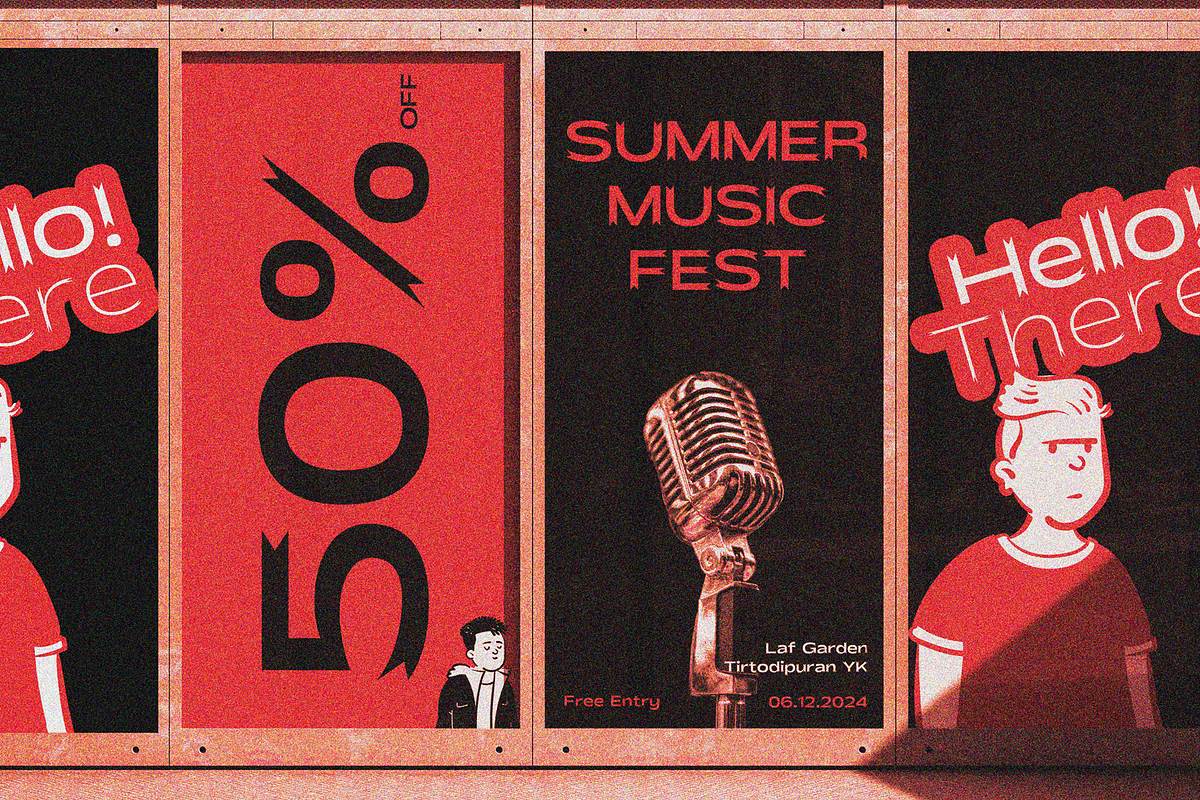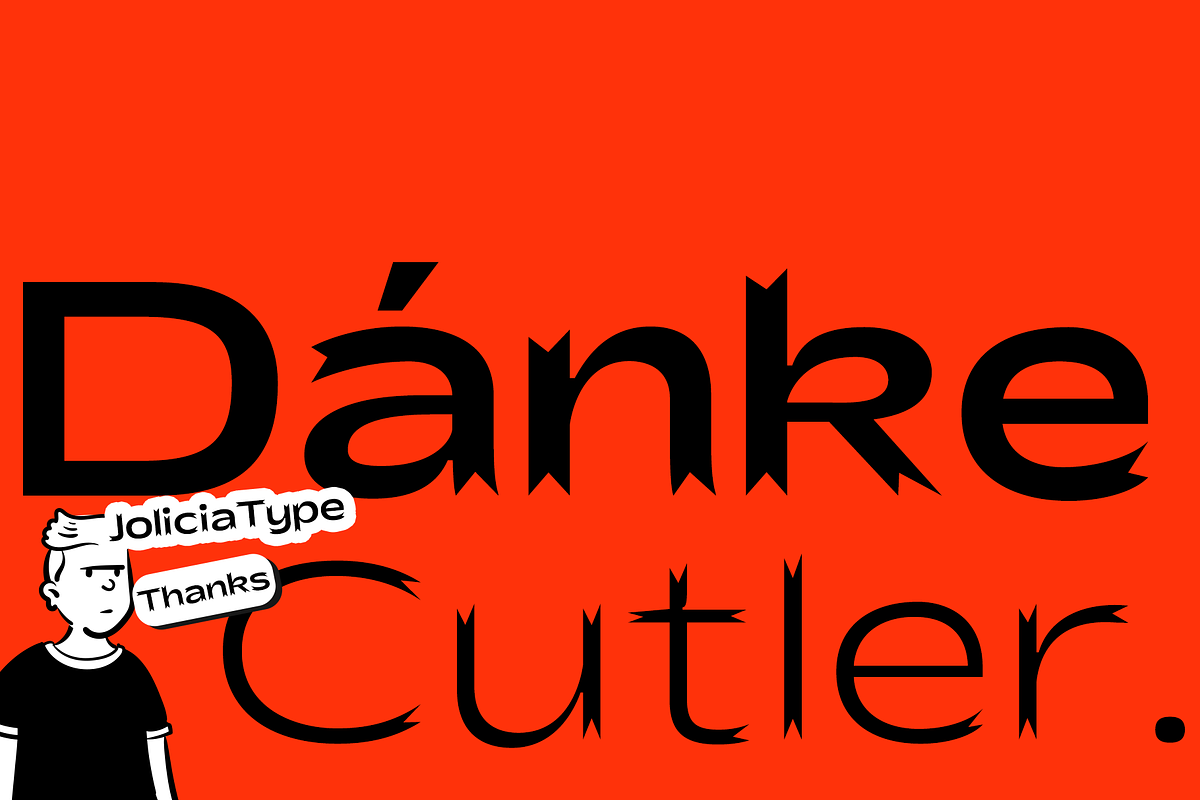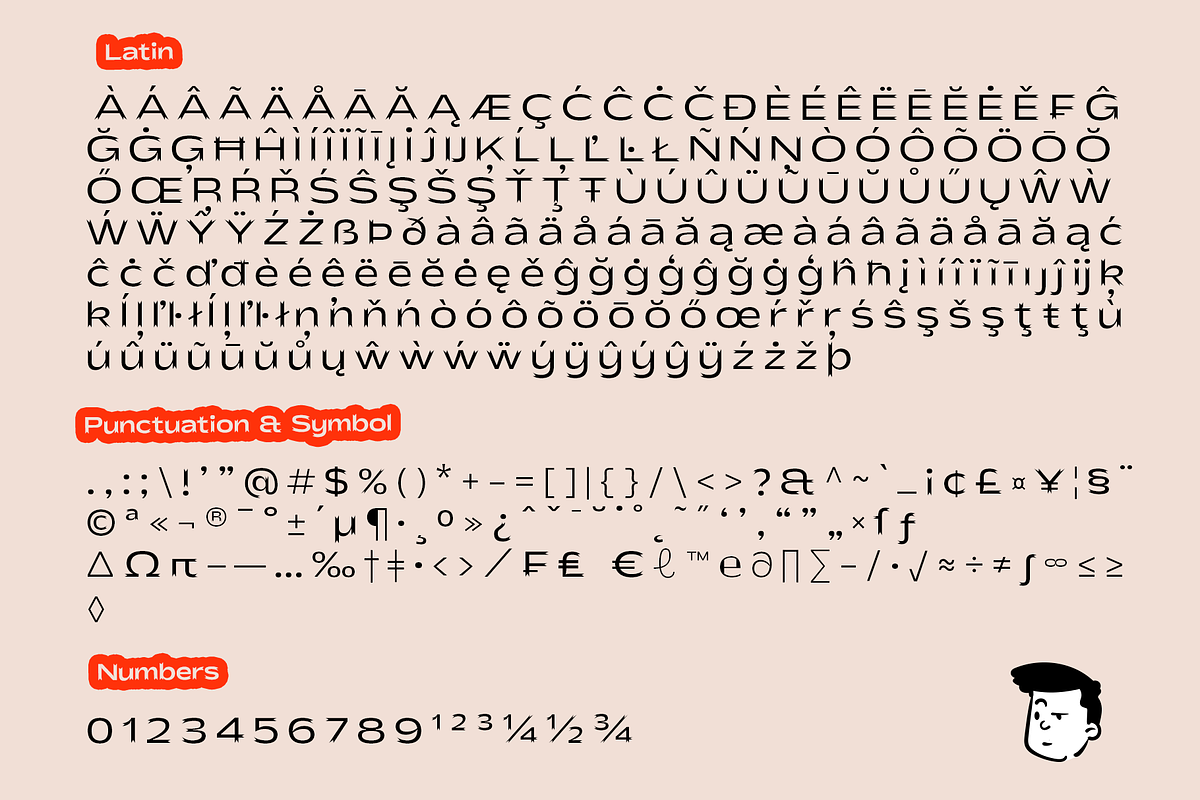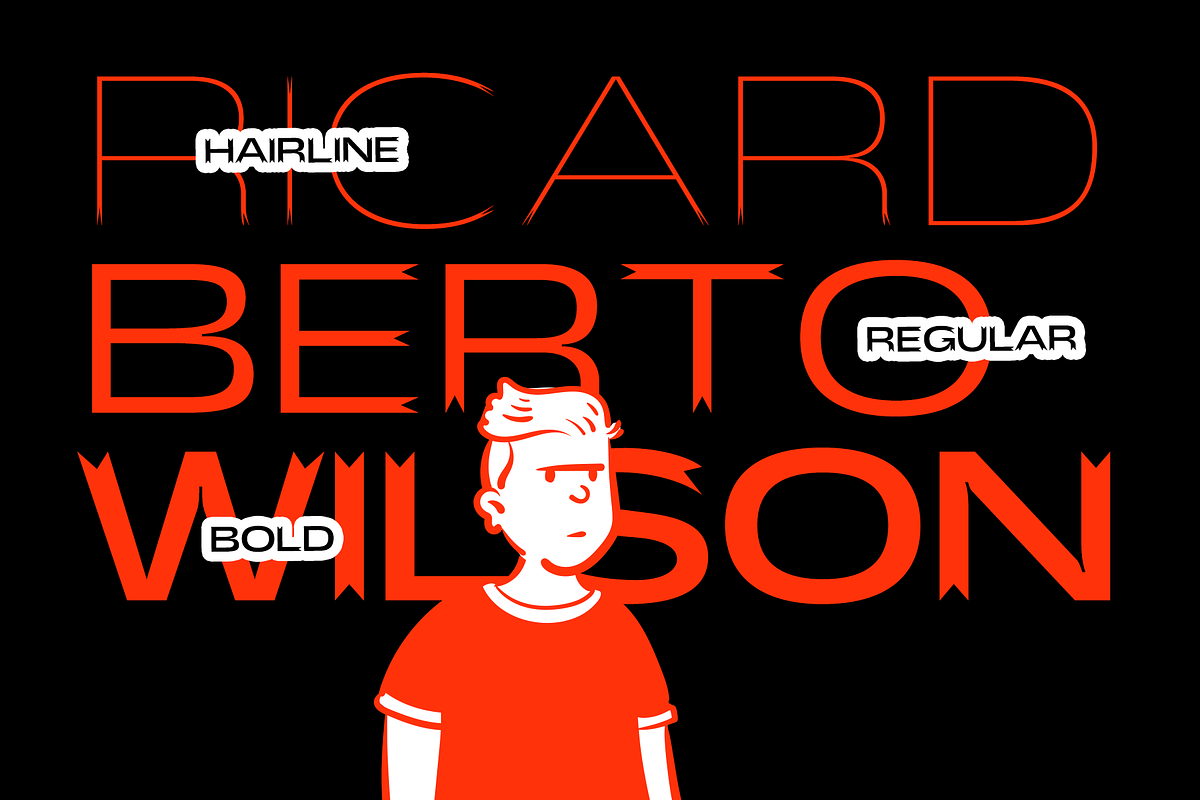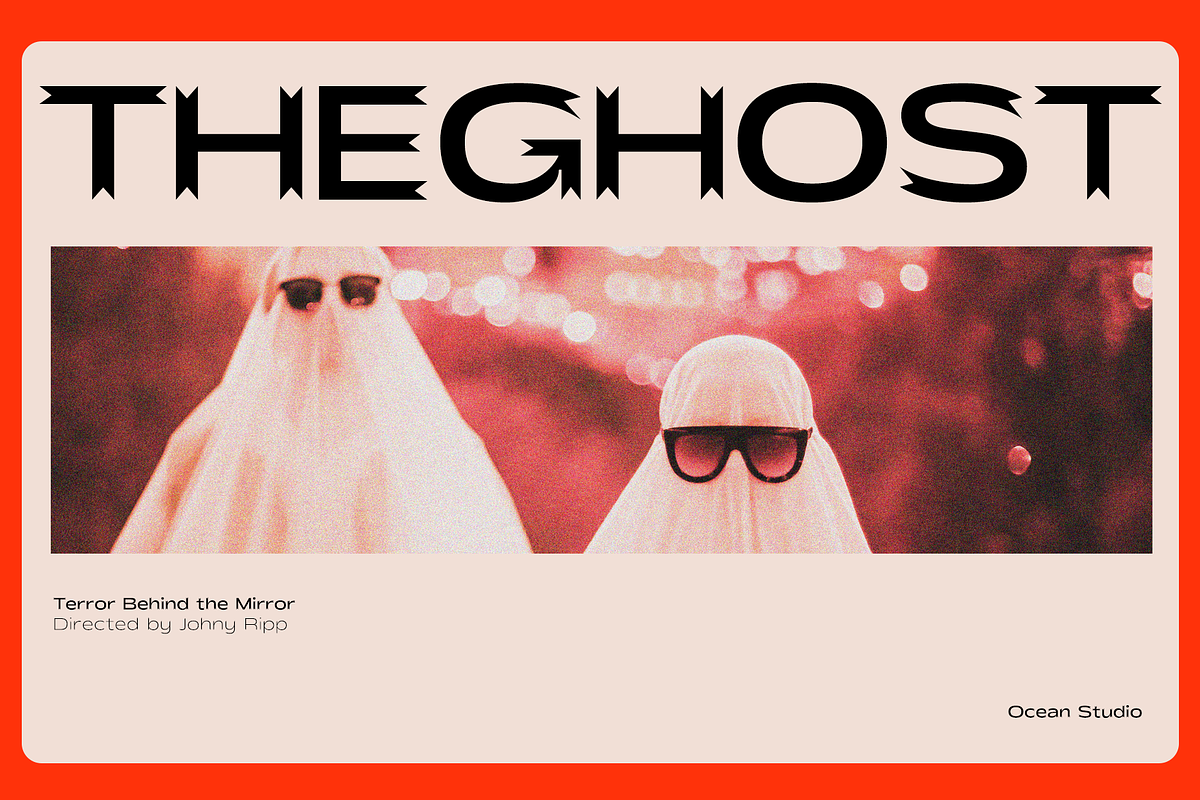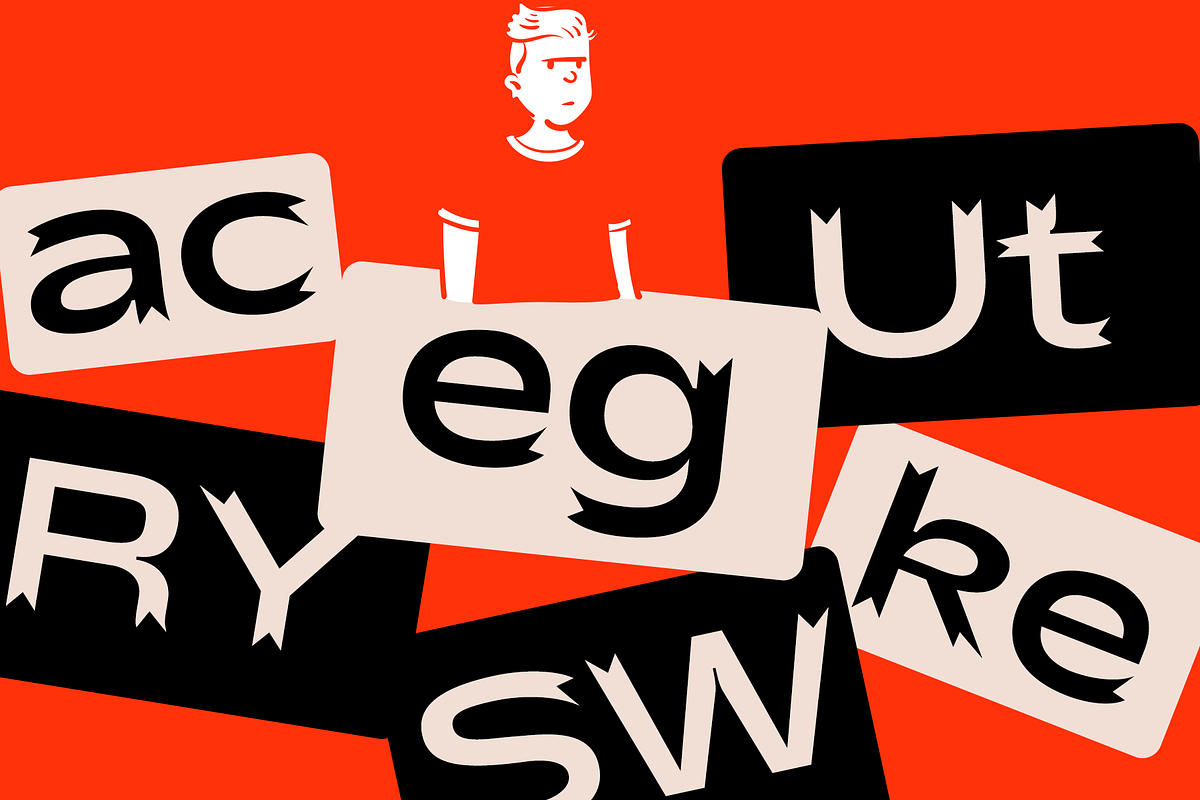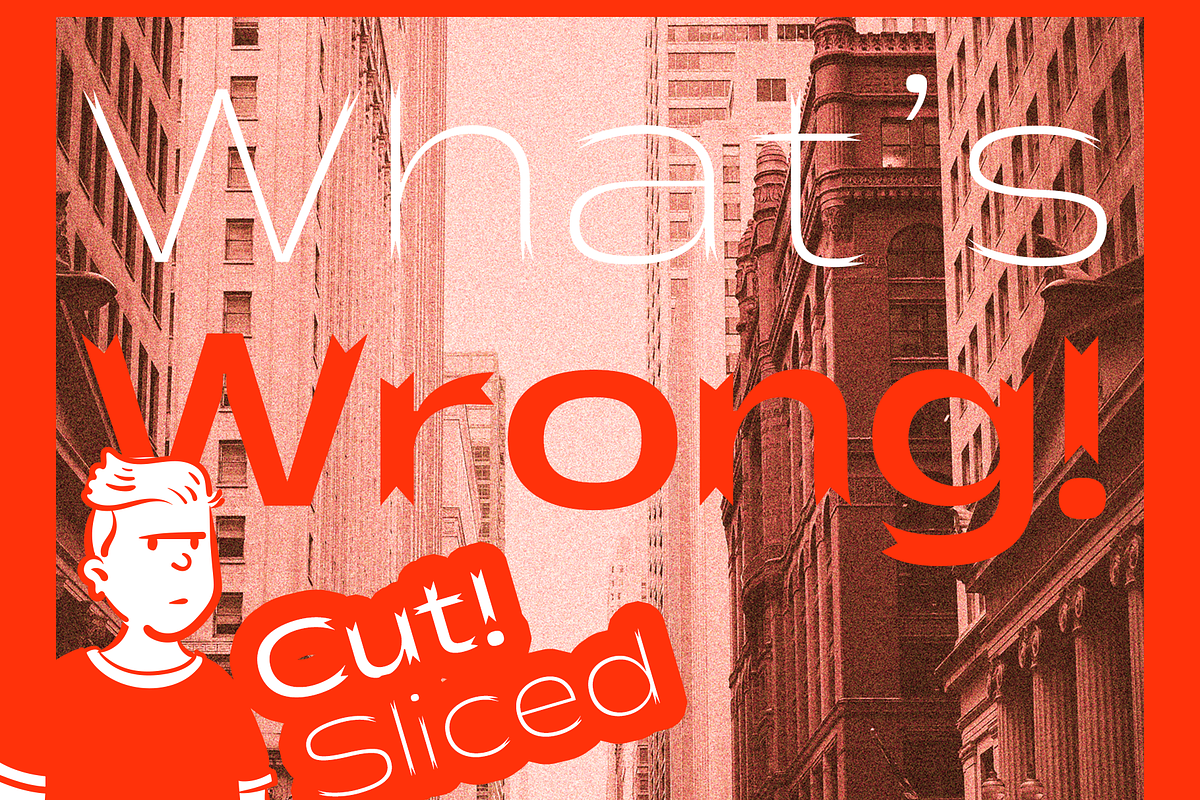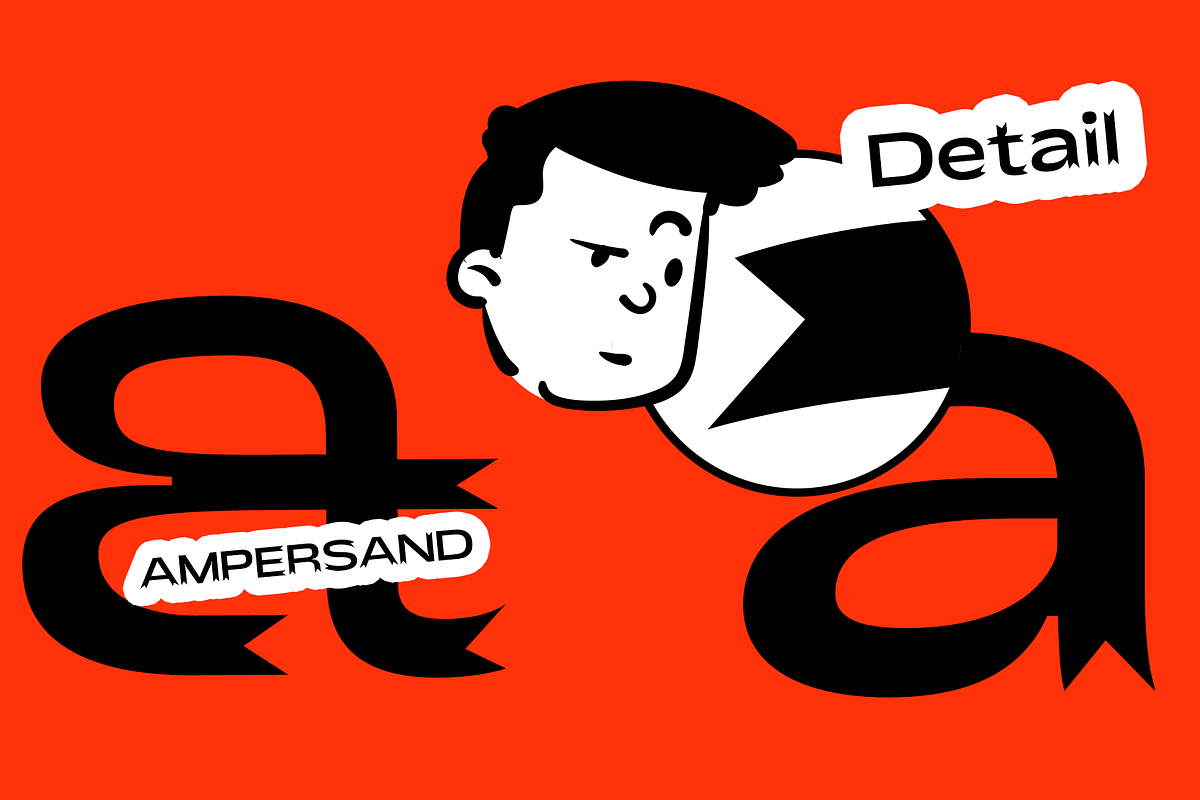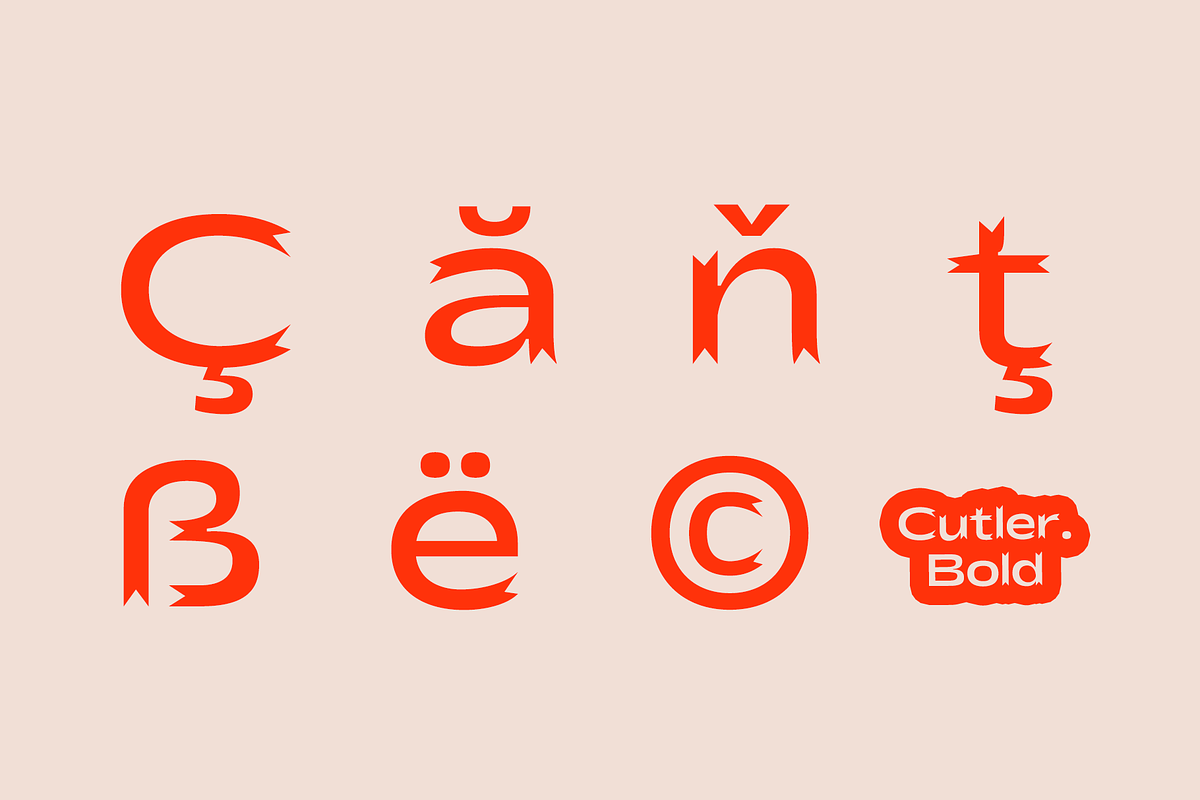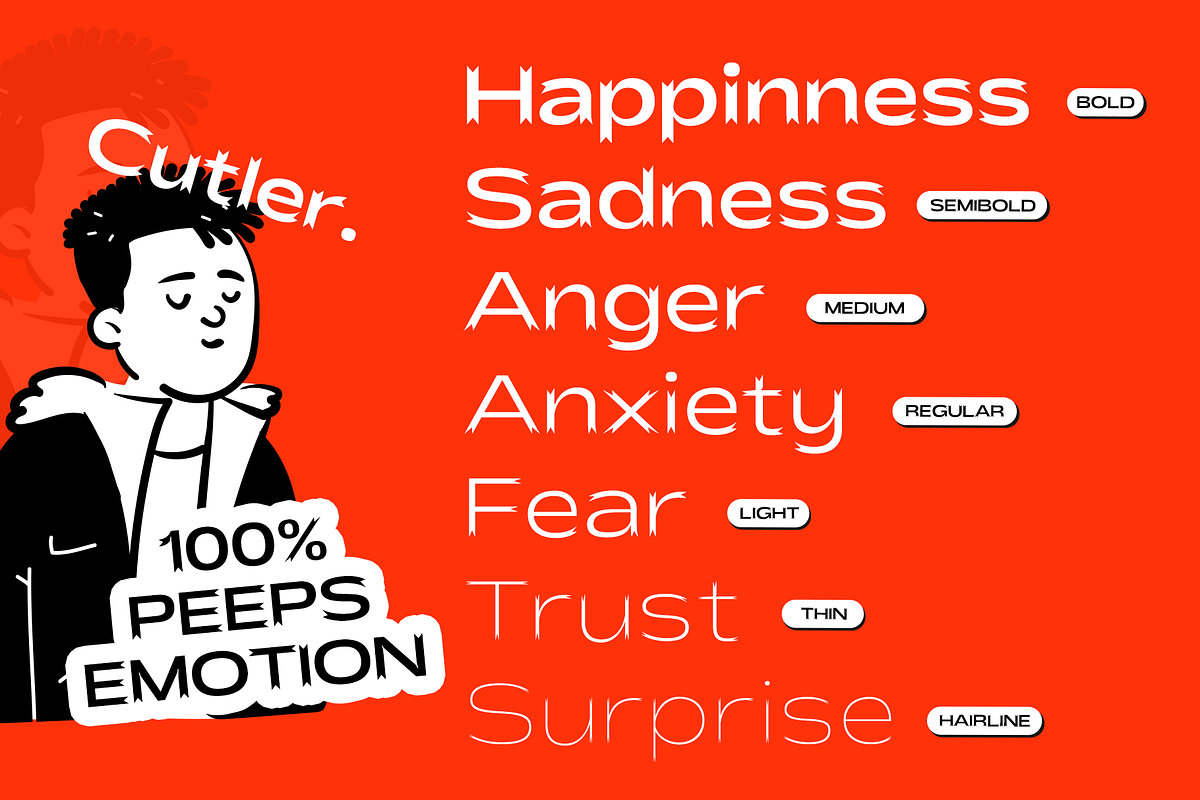
Cutler Sans | Cutting Edge Font
Cutler Sans is a modern display sans-serif font with unique, bold characteristics that set it apart from conventional sans-serifs. Inspired by the precision of cut paper, each stem in Cutler Sans has a sharply angled end, mimicking the look of scissors slicing through paper. This distinct detail adds a dynamic, crafted feel to the letters, creating a clean yet full-of-character aesthetic.
Available in 7 different weights, from the light and elegant Hairline to the strong, eye-catching Bold, Cutler Sans is designed for versatile use across various design needs. It’s an ideal choice for applications that call for a modern, daring aesthetic—whether for logos, magazine headlines, posters, or product branding. The range of weights allows you to express the exact style needed for each project, from minimalist and refined to visually impactful. Carefully developed for optimal clarity and legibility, Cutler Sans performs exceptionally well both on-screen and in print. Its unique combination of sharply angled ends and balanced sans-serif proportions make this font highly versatile yet consistently contemporary. With Cutler Sans, you’ll create designs that stand out and leave a lasting impression. is a modern display sans-serif font with unique, bold characteristics that set it apart from conventional sans-serifs. Inspired by the precision of cut paper, each stem in Cutler Sans has a sharply angled end, mimicking the look of scissors slicing through paper. This distinct detail adds a dynamic, crafted feel to the letters, creating a clean yet full-of-character aesthetic.